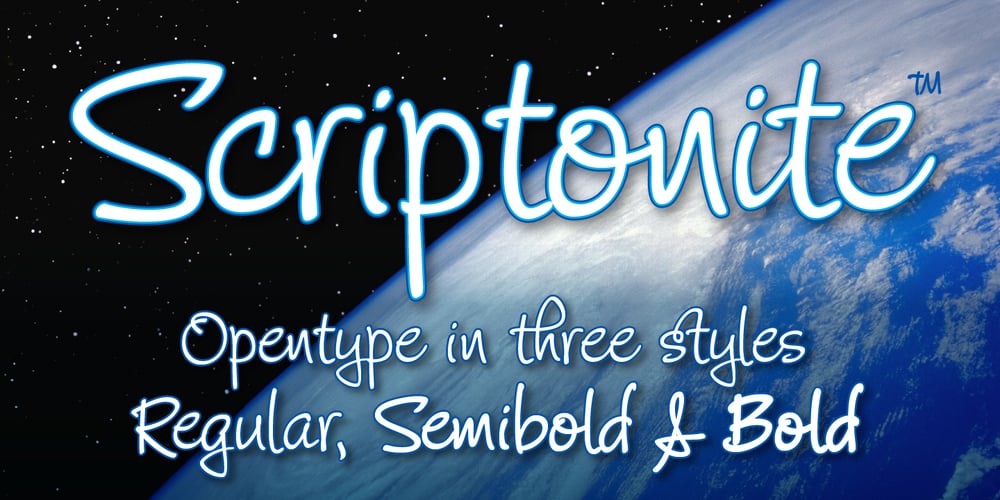
Scriptonite Font Family was designed by John Nahmias and published by Jonahfonts. Scriptonite contains 3 styles and family package options. A freehand OpenType face, including 20 ligatures as well as the most popular discretionary ligatures. (ft, ct and st) Usage recommendations: Posters, titles, book covers, books, greeting cards, packaging, invitations, magazine articles, titling and advertising.